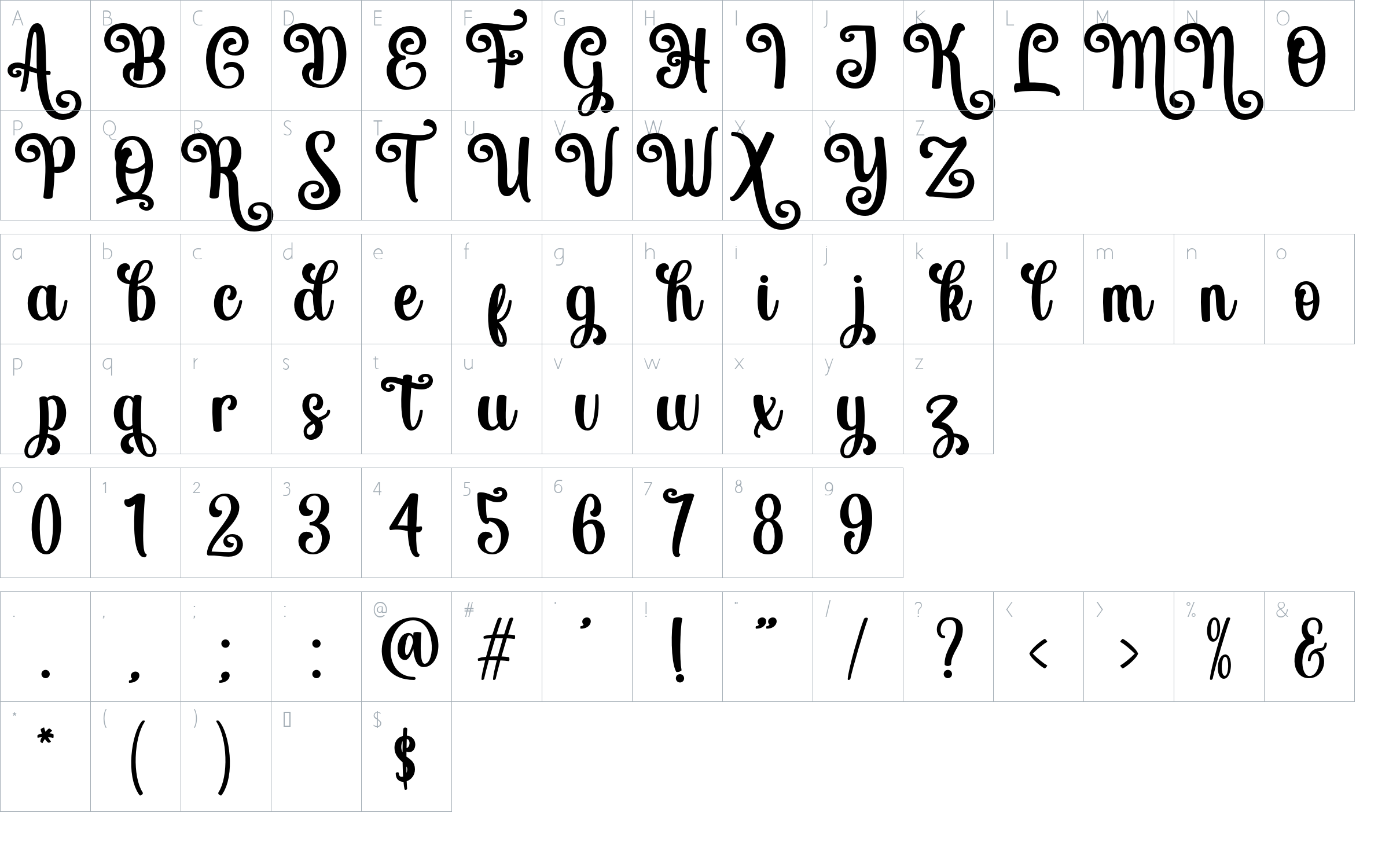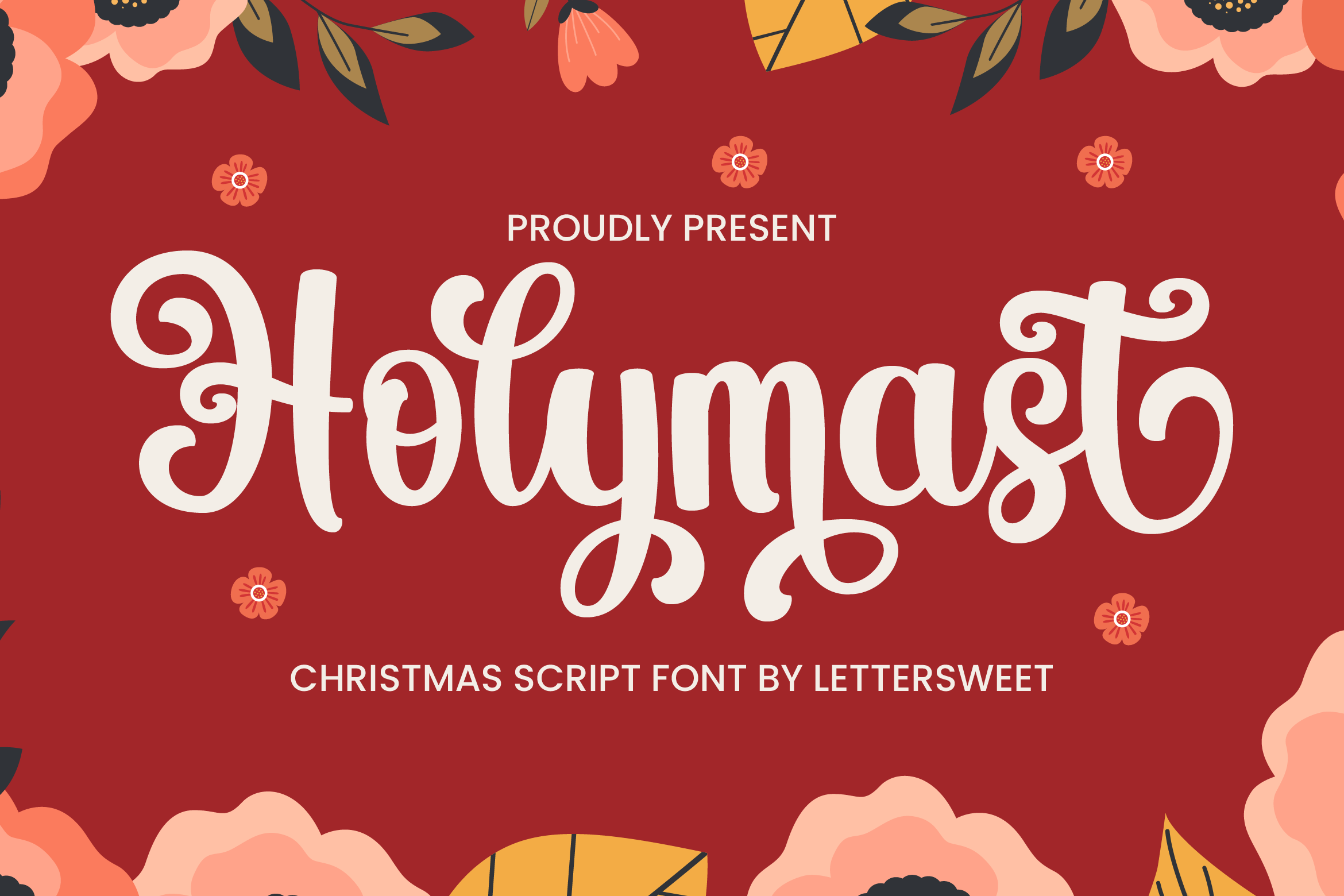
Holymast - Christmas Handwritten Font Font
About Holymast - Christmas Handwritten Font
Holymast is a beautiful and sweet handwritten font. It is fresh, clean, and elegant. This font will look amazing in a great number of projects, both formal and informal.